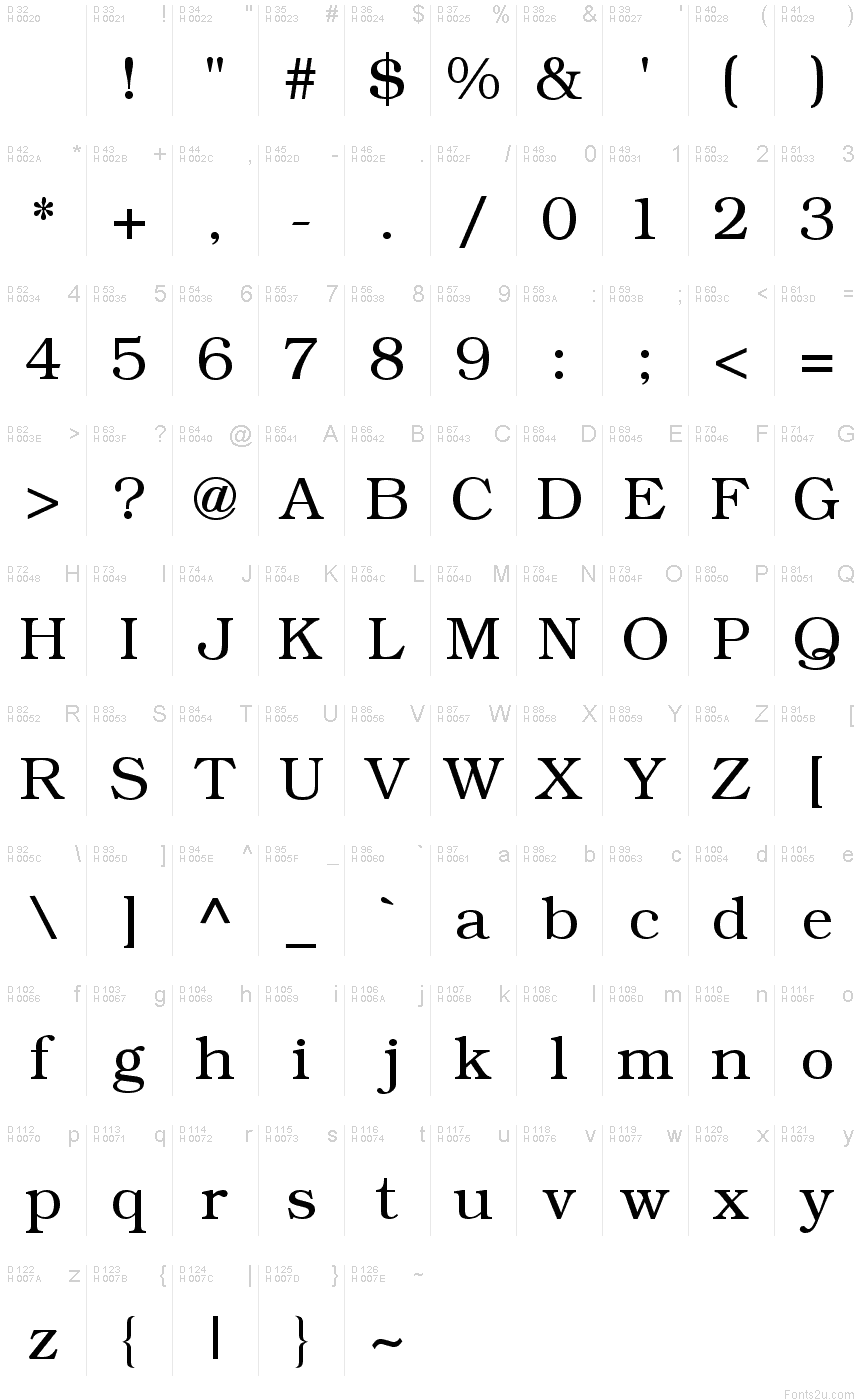
Librarian Regular
Librarian is a free serif font whose rhythm comes from tall vertical strokes balanced by rounded, calligraphic curves and small ball-like endings. That mix gives the lettering a bookish, slightly formal cadence, with enough softness in the arches and joins to keep it from feeling rigid.
It makes especially good sense on book covers, chapter openers, library branding, reading program posters, and literary event materials where that measured rhythm can echo print tradition. The same gentle structure also lends itself to certificates or stationery, especially when you want serif lettering that feels cultivated rather than stern.